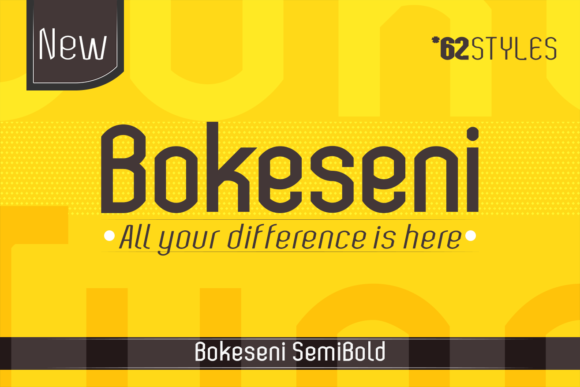
There’s nothing quite like the thrill of stumbling upon the perfect font for a design project. You’re brainstorming ideas, flipping through font libraries, and suddenly, it hits you – the perfect combination of style and functionality. For many designers, this moment is what makes the design process truly magical.
Enter the Bokeseni SemiBold Font, a delightful sans serif typeface that’s sure to elevate your designs to the next level. With its clean and condensed feel, this font is perfect for everything from casual blogs to formal presentations. Its neat arrangement of letters makes it a versatile choice for designers who want to add a touch of elegance to their work.
The Bokeseni SemiBold Font is an invaluable asset for designers, offering a unique blend of style and practicality that’s hard to find in other fonts. Whether you’re working on a personal project or a professional campaign, this font is sure to deliver the results you’re looking for.
Bokeseni SemiBold Font Key Features
- Font Family: Bokeseni SemiBold, a modern sans-serif font designed for digital interfaces.
- Unique Characteristics: Bokeseni SemiBold features a distinctive balance of geometric and organic elements, resulting in a highly legible and visually appealing font.
Bokeseni SemiBold Font Review
I recently had the chance to work with the Bokeseni SemiBold font, and I must say it’s a unique and interesting addition to my design toolkit. Here are my thoughts.
- The Bokeseni SemiBold font has a nice balance of modernity and classic feel, making it a great choice for a wide range of design projects.
- Its semi-bold weight gives it a subtle edge, which I find particularly useful for headings and titles.
- The font is highly legible, even at smaller font sizes, making it a great choice for body text and captions.
- The Bokeseni SemiBold font may not be suitable for designs that require a more neutral or sans-serif feel.
Overall, I think the Bokeseni SemiBold font is a great addition to any designer’s toolkit. While it may have some limitations, its unique character and high legibility make it a great choice for a wide range of design projects.
Getting the Most Out of Bokeseni SemiBold
For optimal results, use Bokeseni SemiBold in combination with other sans-serif fonts to create a balanced and modern design.
Experiment with different font sizes, colors, and arrangements to create visually appealing text.
Bokeseni SemiBold is ideal for:
Headlines and titles
Body text in modern designs
Branding and logos
Alternatives to Bokeseni SemiBold Font
Lato SemiBold Font
Lato SemiBold Font is a modern sans-serif typeface designed by Łukasz Dziedzic. It is ideal for use in digital products, magazines, and websites where a clean and minimalistic look is desired. Lato SemiBold Font has a slightly condensed and neutral design, making it suitable for body text and headings. It is a good alternative to Bokeseni SemiBold Font as it offers a similar level of sophistication and legibility.
Comparison: Lato SemiBold Font is more modern and condensed than Bokeseni SemiBold Font, making it a better choice for digital products and websites. However, Bokeseni SemiBold Font has a more distinctive and elegant feel that may be preferred in certain design contexts.
Montserrat SemiBold Font
Montserrat SemiBold Font is a sans-serif typeface designed by Julieta Ulanovsky. It is a geometric font with a strong, urban feel, making it ideal for use in city-themed designs, tech startups, and modern websites. Montserrat SemiBold Font has a more aggressive and geometric design compared to Bokeseni SemiBold Font, making it a better choice for designs that require a bold and edgy feel.
The recommended font size for optimal readability with Bokeseni SemiBold Font is between 12-14 points for body text and 18-24 points for headings. However, this may vary depending on the specific design and intended audience.